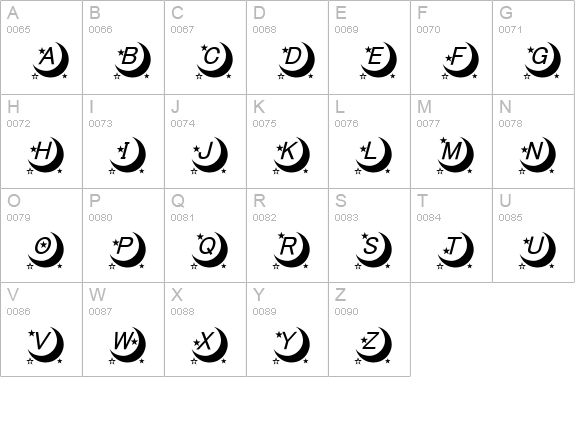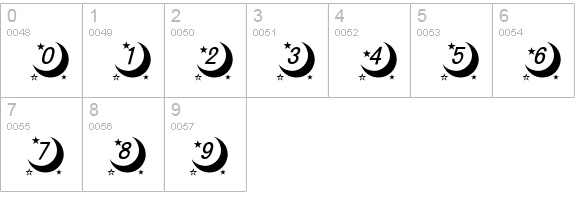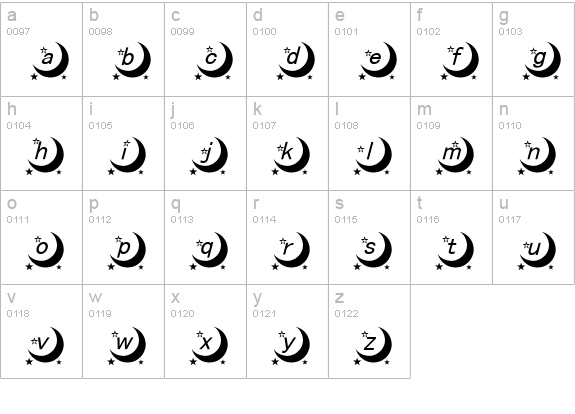
Introducing Moon Font, a sleek and modern typeface that captures the ethereal beauty of the moon in its elegant letterforms. This font exudes a sense of mystery and sophistication, making it perfect for a wide range of design projects. With its clean lines and unique style, Moon Font adds a touch of celestial charm to any layout. Best of all, Moon Font is completely free to download at FontsMarket.com. Whether you're designing a poster, logo, or website, this versatile font will elevate your creations to new heights. Embrace the magic of the moon with Moon Font and let your designs shine bright in the night sky.